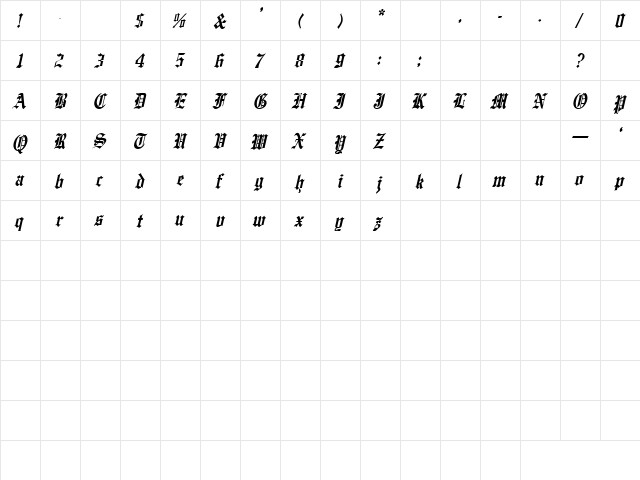
Inferno 6 Italic
Inferno 6 is a composed and adaptable typeface that performs quietly and consistently across a wide range of design contexts. The slanted form adds forward momentum and visual energy.
Pro Tip: Use Inferno 6 for emphasis, pull quotes, and subheadings where its slanted energy can add rhythm to the layout.